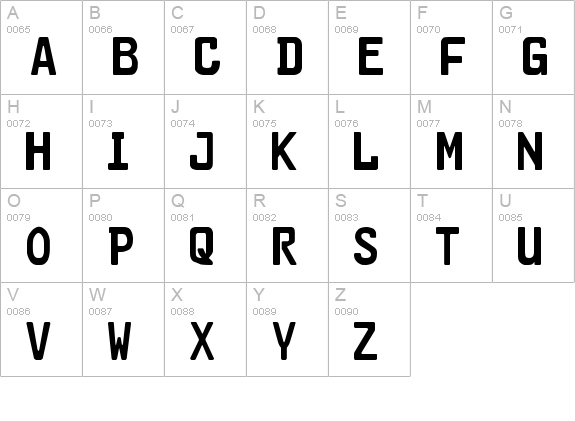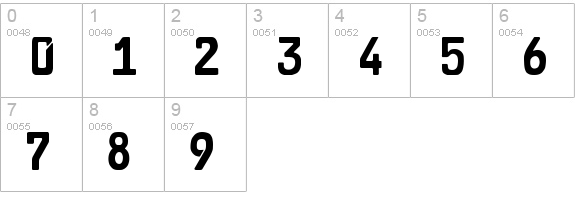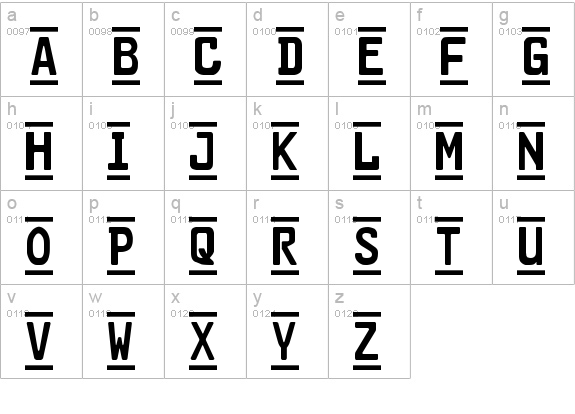
CAR-GO 2 Font Details
CAR-GO 2 font is a sleek and modern typeface that exudes sophistication and style. Its clean lines and bold lettering make it perfect for a wide range of design projects, from logos to posters to websites. This versatile font is sure to make a statement and leave a lasting impression on your audience. What sets CAR-GO 2 font apart is that it is available for free download at FontsMarket.com. This means that you can easily access this high-quality font without having to spend a penny. Whether you're a professional designer or a hobbyist, CAR-GO 2 font is a must-have addition to your font collection. With its contemporary design and professional feel, CAR-GO 2 font is ideal for creating eye-catching designs that stand out from the crowd. Download it today and elevate your projects with this exceptional font.